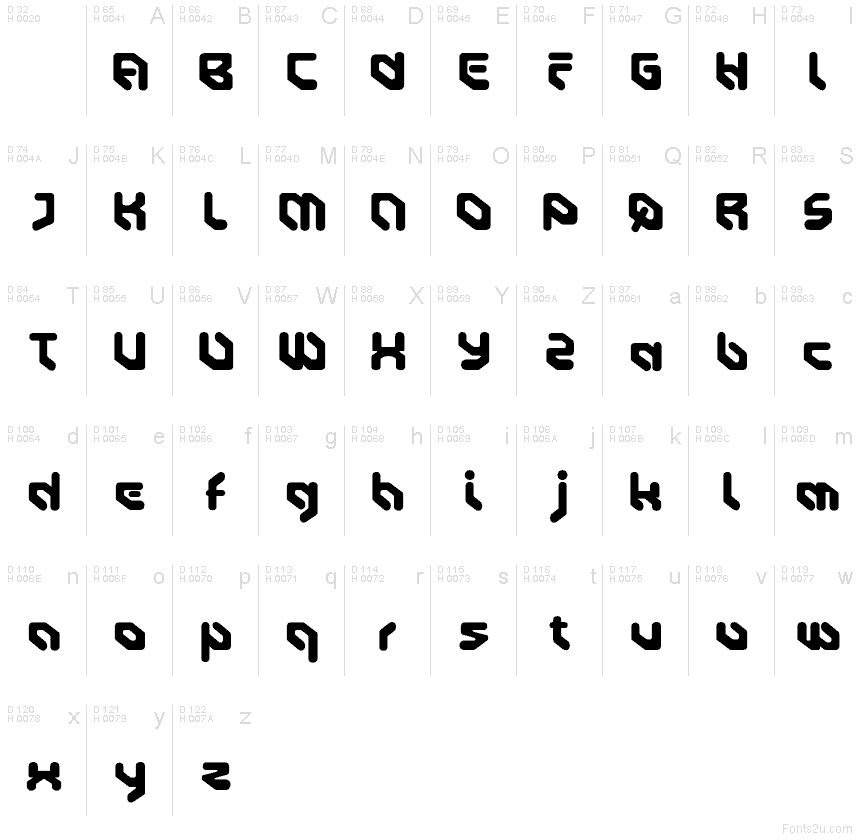
Gizmos Regular Demo
Gizmos font by Craft Supply Co. is a futuristic display typeface with a bold weight and expanded width. Inspired by retro-futuristic aesthetics, its rounded geometric shapes and modular appearance stand out with a slightly playful tone. The high legibility it offers allows it to be useful in different media designs.